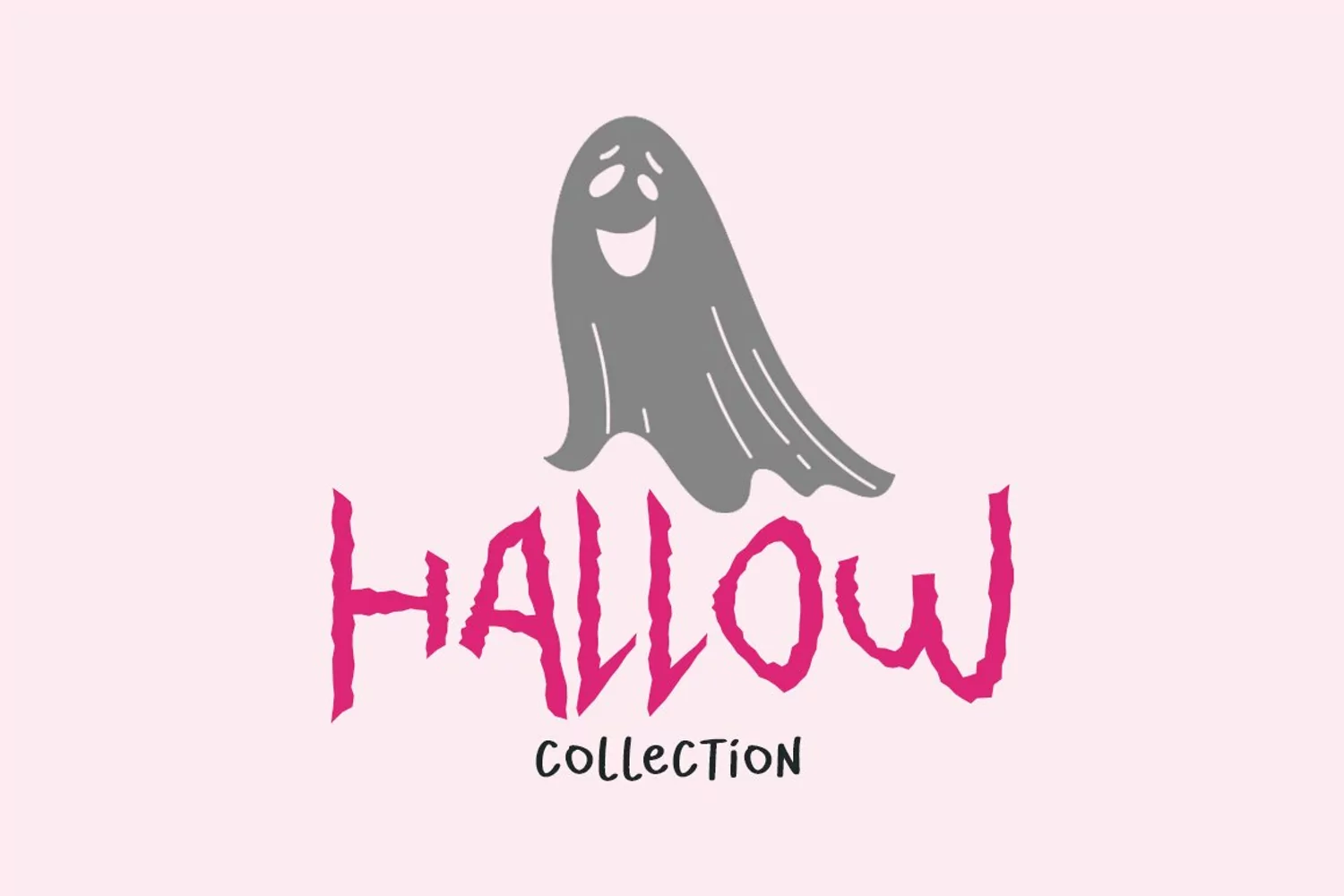
Pinky Scream is the ideal for for any crafting project during the scariest time of the year. It will take any Halloween craft with the sweet feeling to the next level!
Font includes: All caps glyphs, numbers, basic punctuation, and international characters.